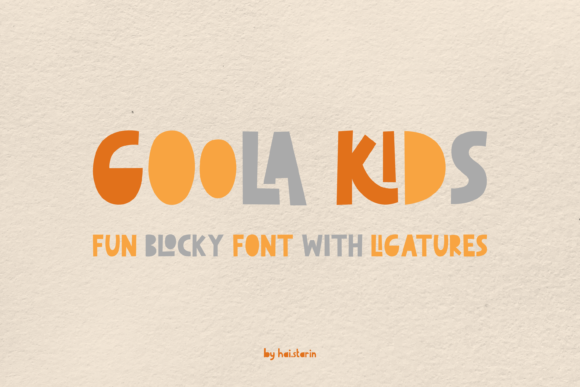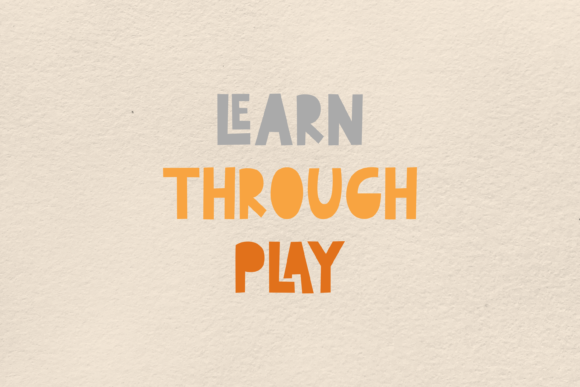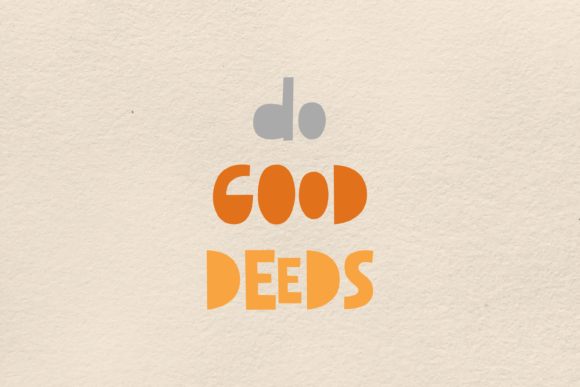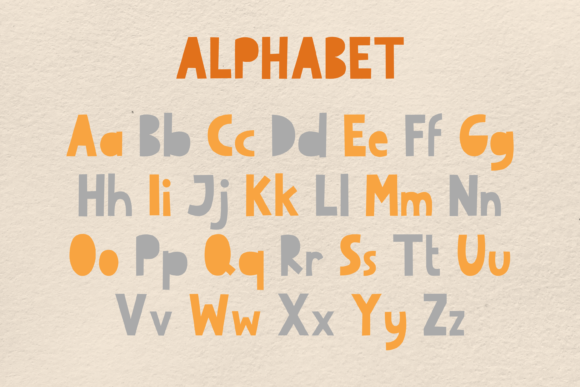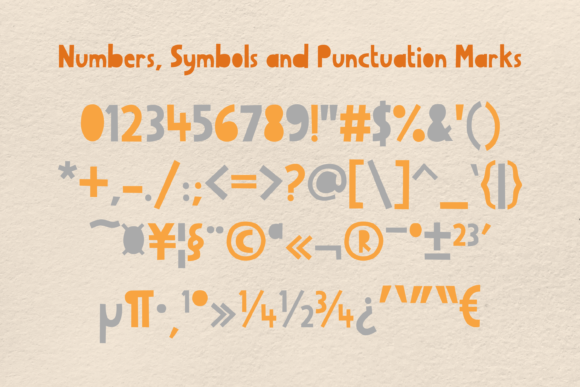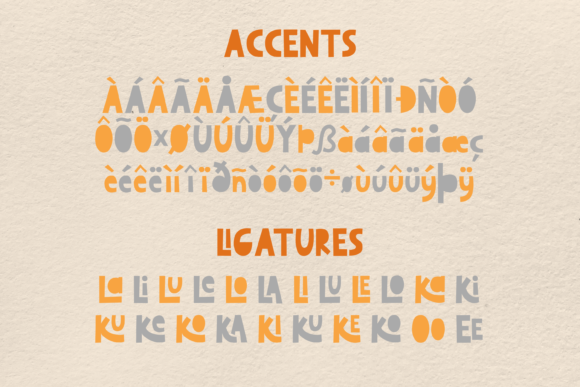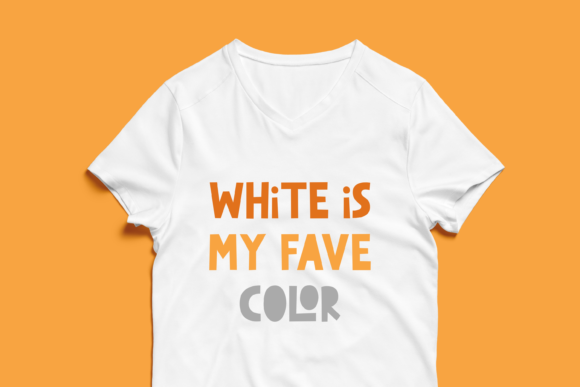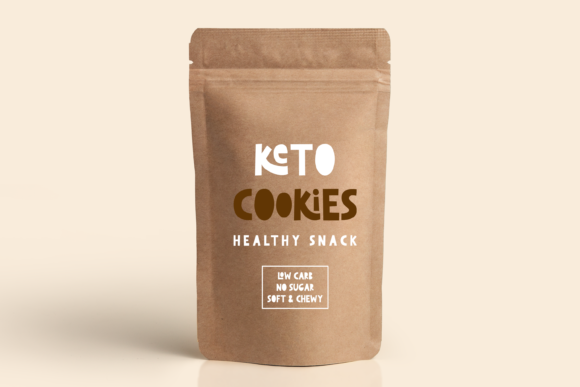
Goola Kids is a fun blocky sans serif font with some ligatures. This cool font is perfect for headings, printed quotes, product packaging, or any projects that require a playful and unique look!
Goola Kids Font